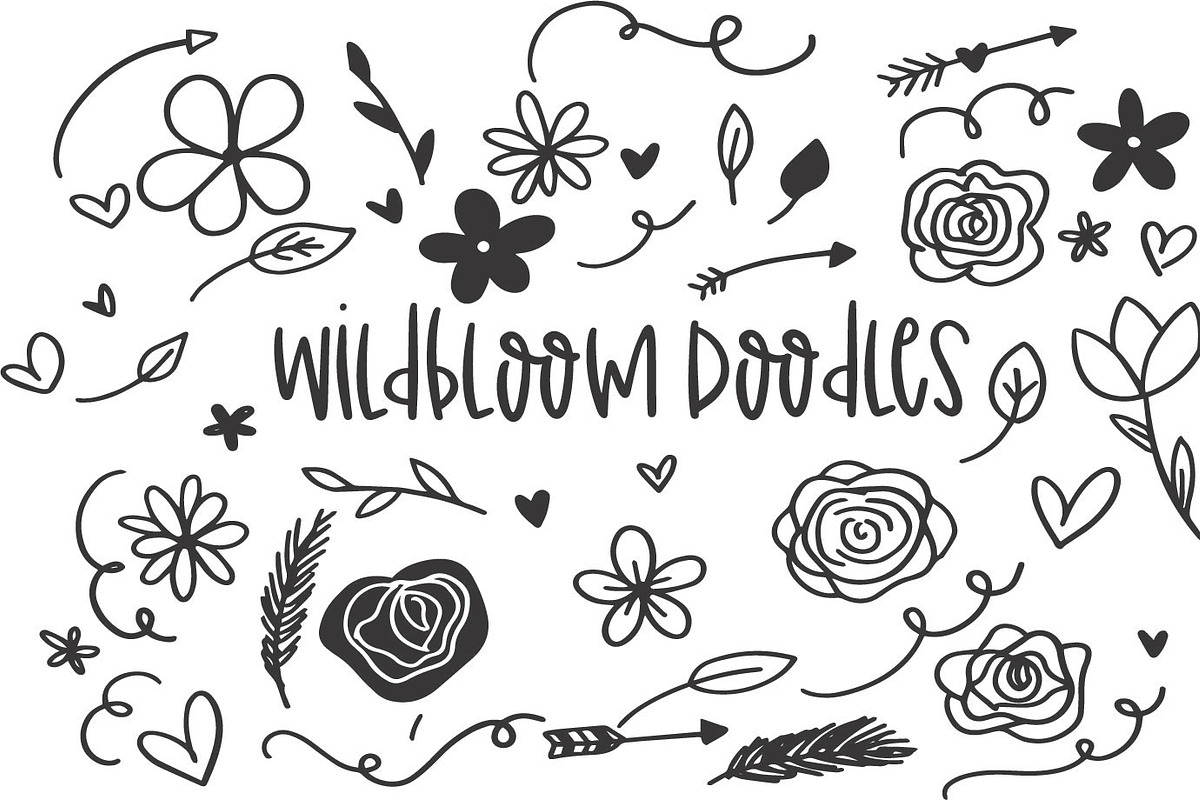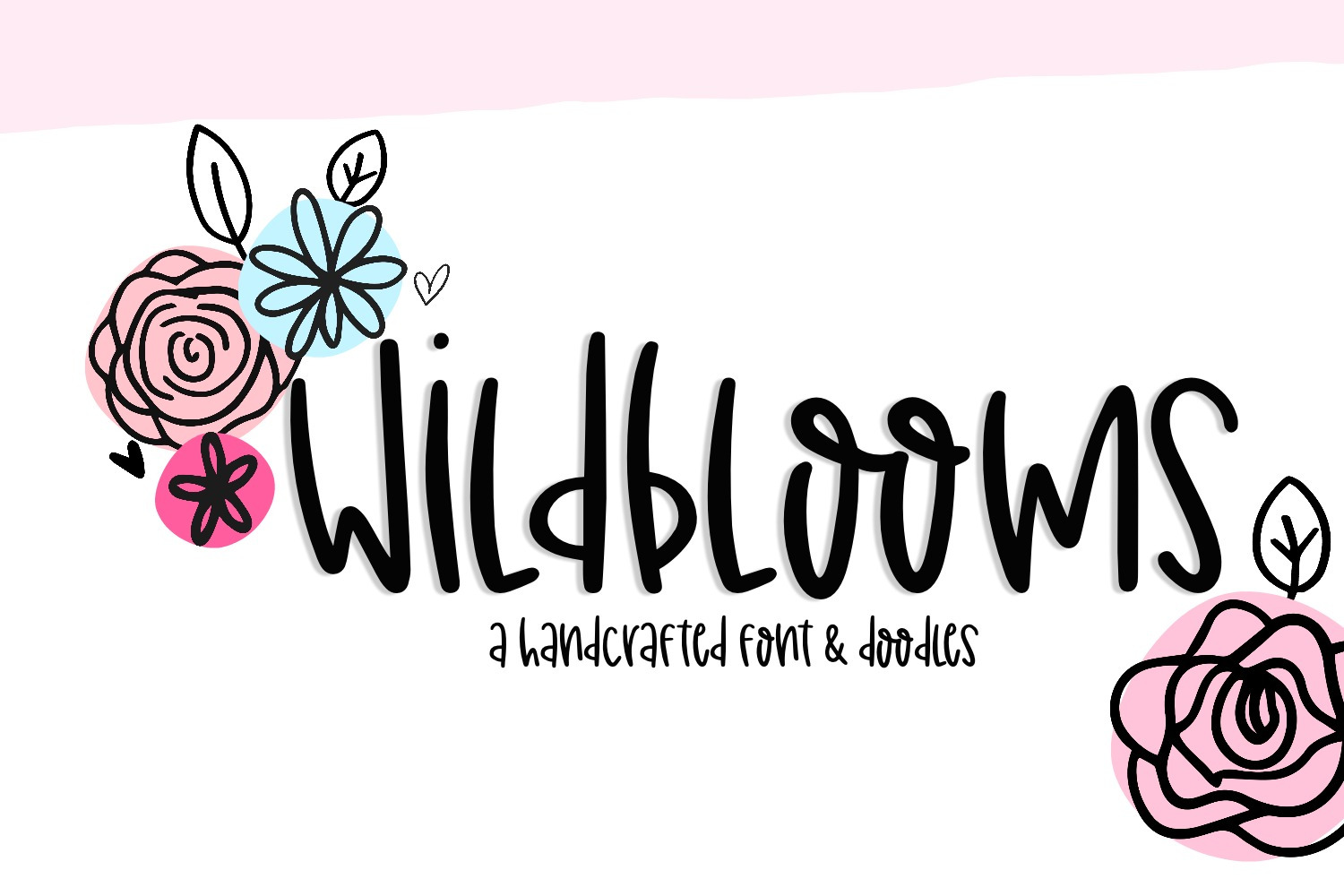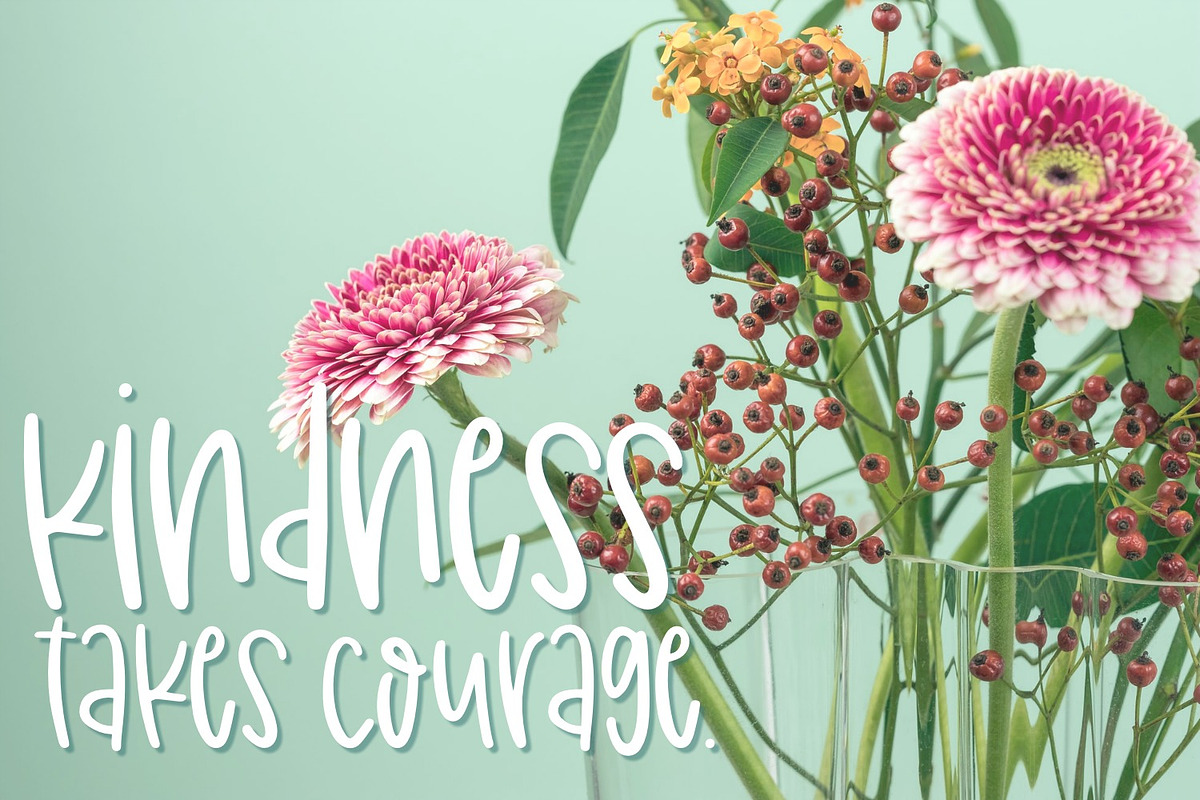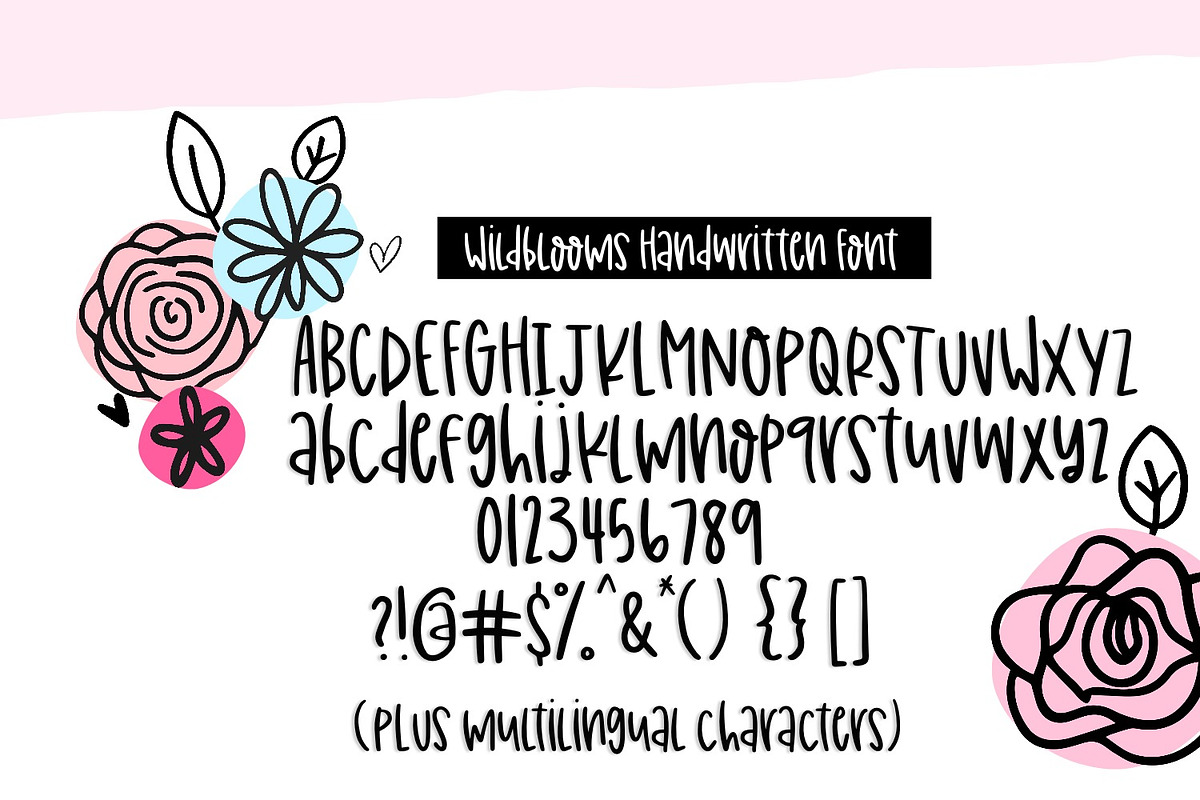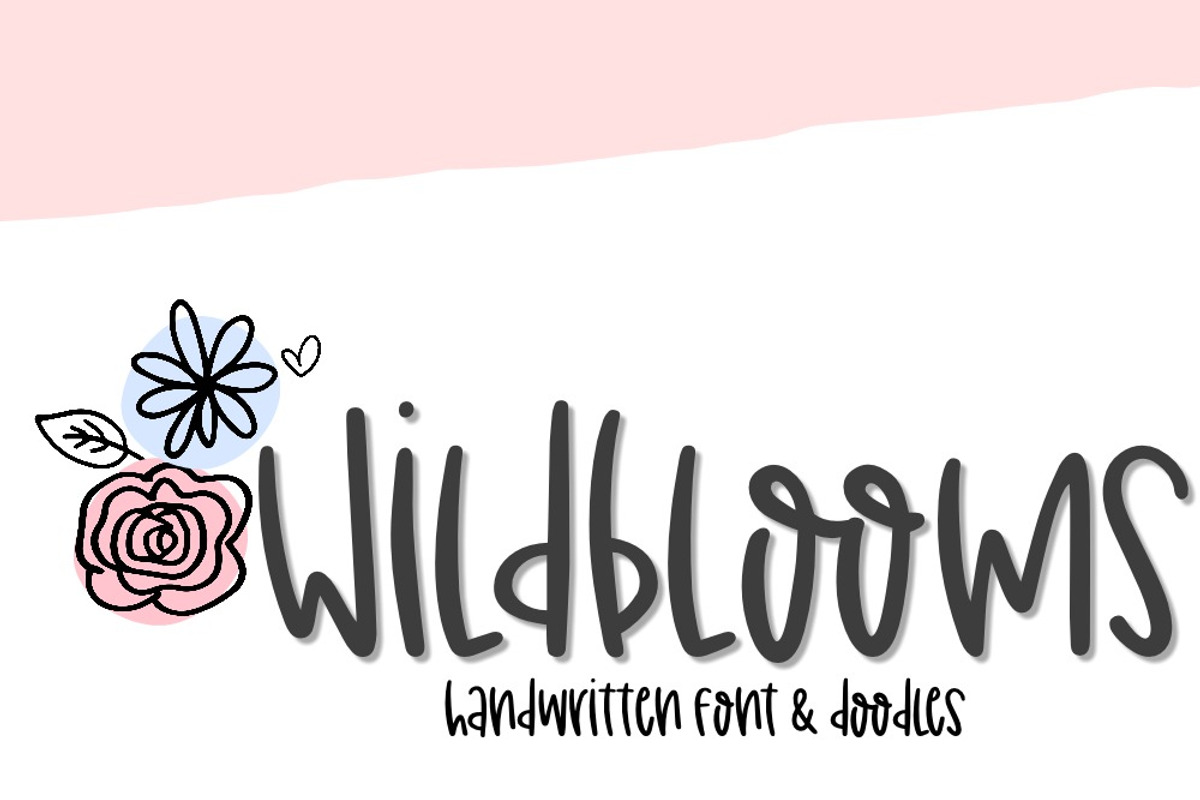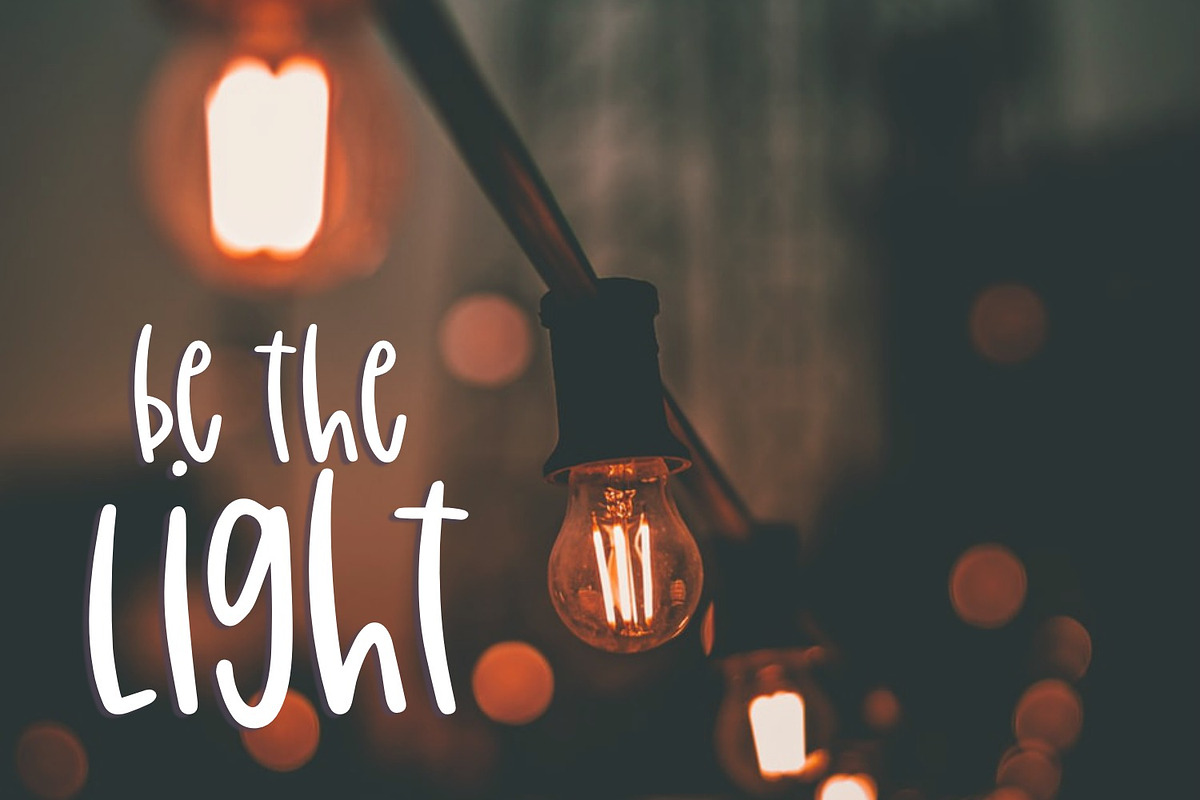
Wildblooms Font & Doodle Duo
Wildblooms Handwritten Font & Doodles is a sweet and charming handwritten font + hand drawn doodles duo. This cute handwritten font is great for logos, t-shirt designs, and any design project that needs the personal touch of a handwritten font.
Language Support Wildblooms Handwritten Font includes Basic Latin & Latin extensions to support English and most Western European languages.